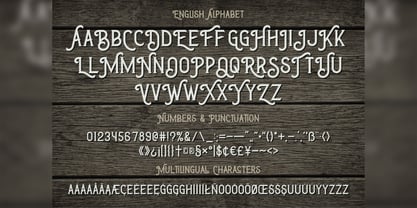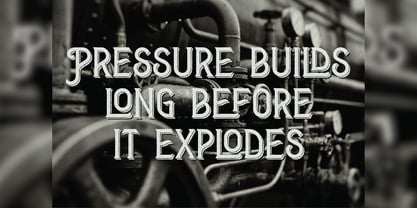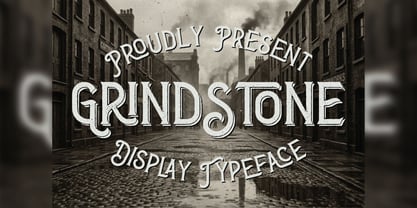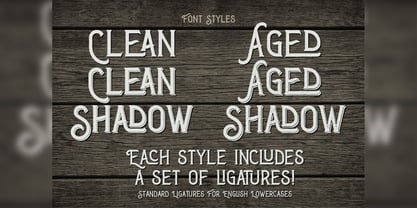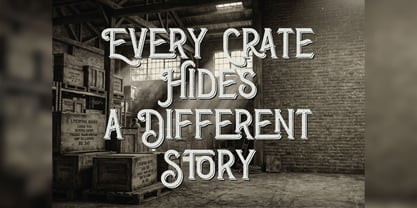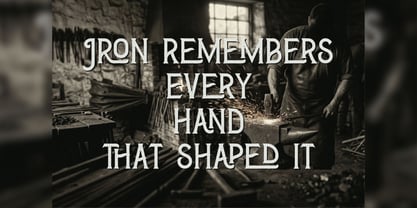
Grindstone
por Vozzy
La familia tipográfica Grindstone fue diseñada por Oleg Voznyy y publicada por Vozzy. Grindstone contiene 4 estilos y opciones de paquete familiar. Más información sobre esta familia
Introducing "Grindstone," a distinctive font designed specifically for headlines and accent inscriptions that demand attention. This versatile typeface features a comprehensive set of additional characters, punctuation marks, and multilingual support, making it ideal for diverse design projects. With an extensive array of standard ligatures, ensure your software is compatible with this OpenType feature to fully utilize its capabilities. "Grindstone" will elevate your beautiful designs, making them stand out with its unique style and flair.
Diseñadores: Oleg Voznyy
Fundición: Vozzy